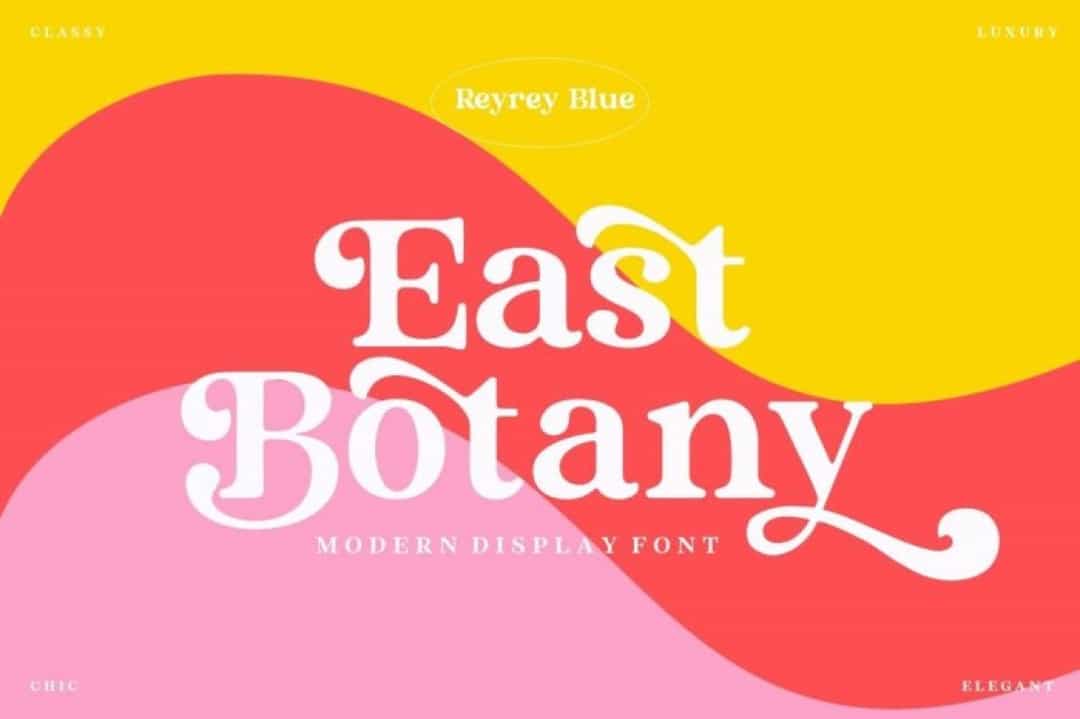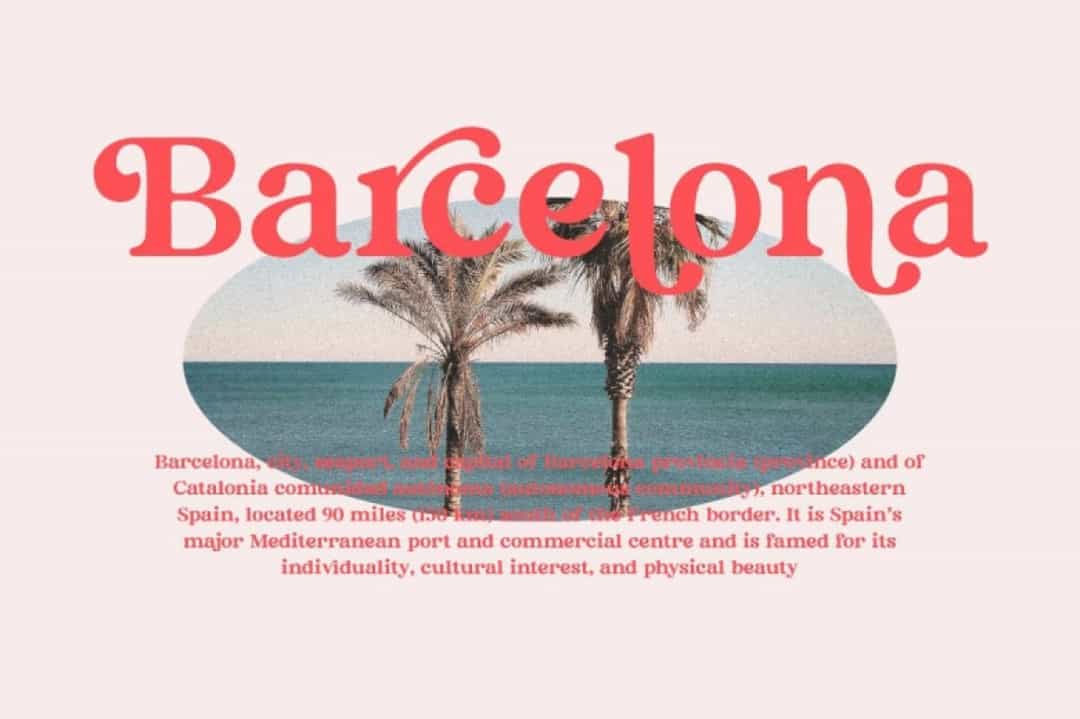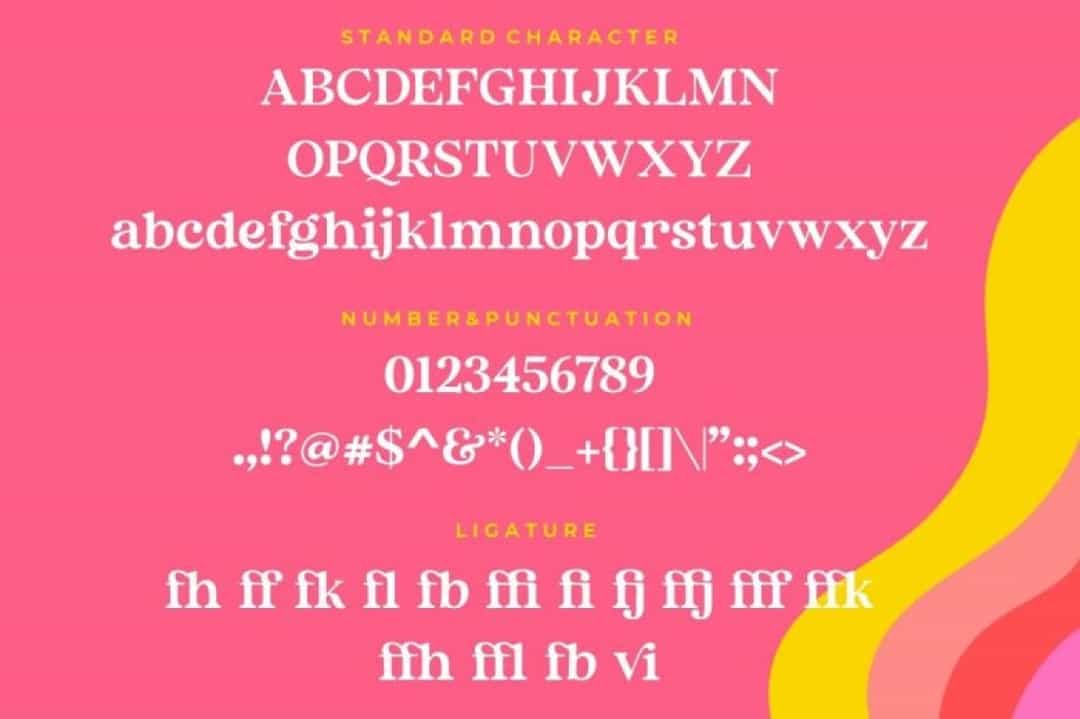
East Botany Serif can be described as a contemporary retro, groovy and retro display typeface that offers striking serif display typography with wide variety of alternate glyphs for unique designs in your projects.